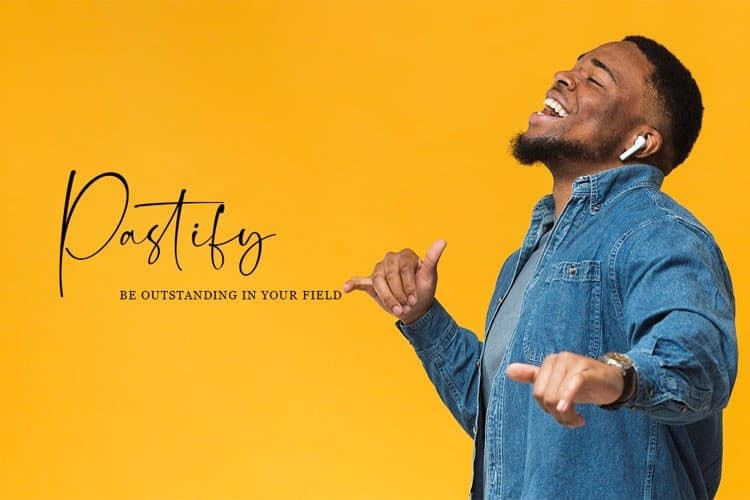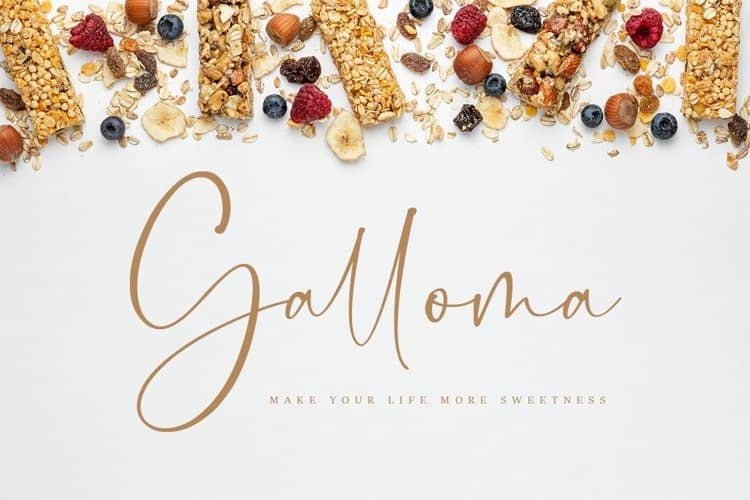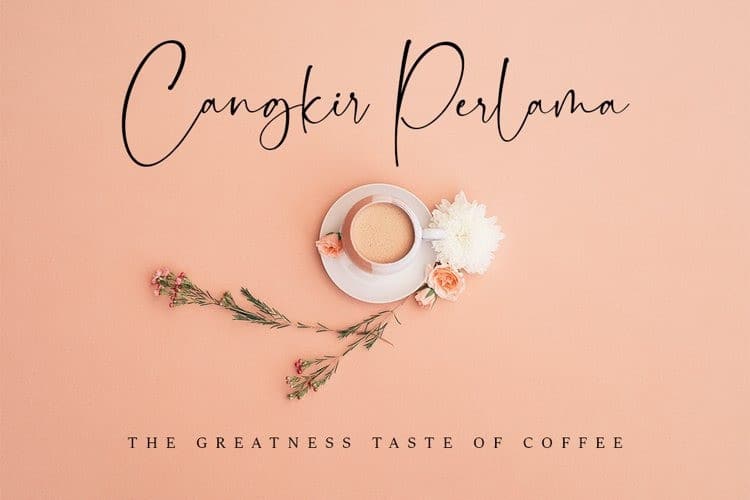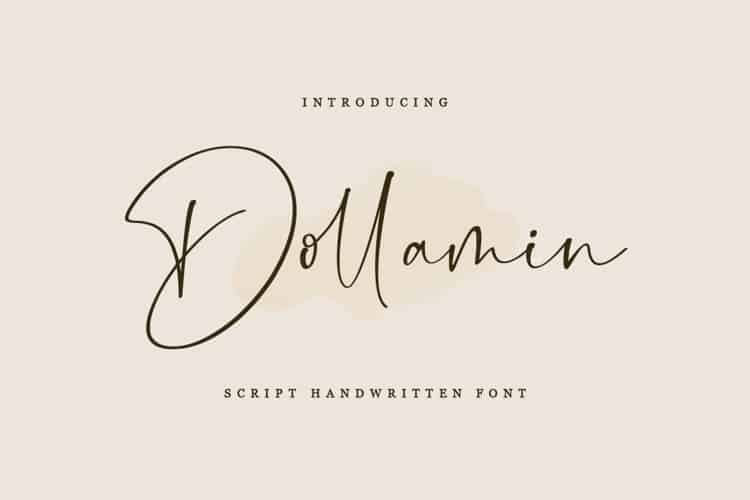
Dollamin Calligraphy Font is a beautiful calligraphy typeface perfect for crafting, branding, invitation, stationery, wedding designs, social media posts, advertisements, watermark, special events or anything.It’s designed and shared by Dav Studio.This font is a handwritten font that brings an air of elegance to every curve. feel the authentic in each letter, turn this font into a part of your creative work! Equipped with basic letters, numerals, punctuation, standard ligature, and multilangual support.